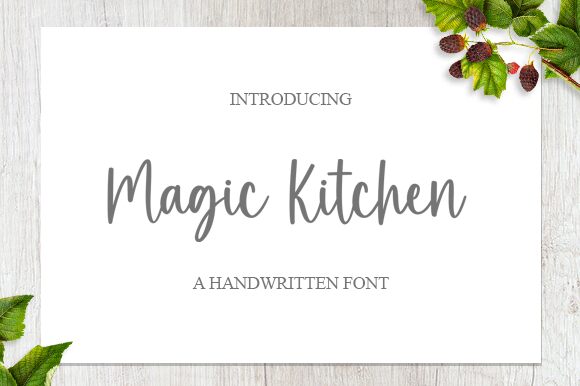
Introducing Magic Kitchen, a light handwritten font designed by Aldi Raya Pradipta. Perfect for creating whimsical logos, posters and branding projects that need a touch of fun!
Magic Kitchen